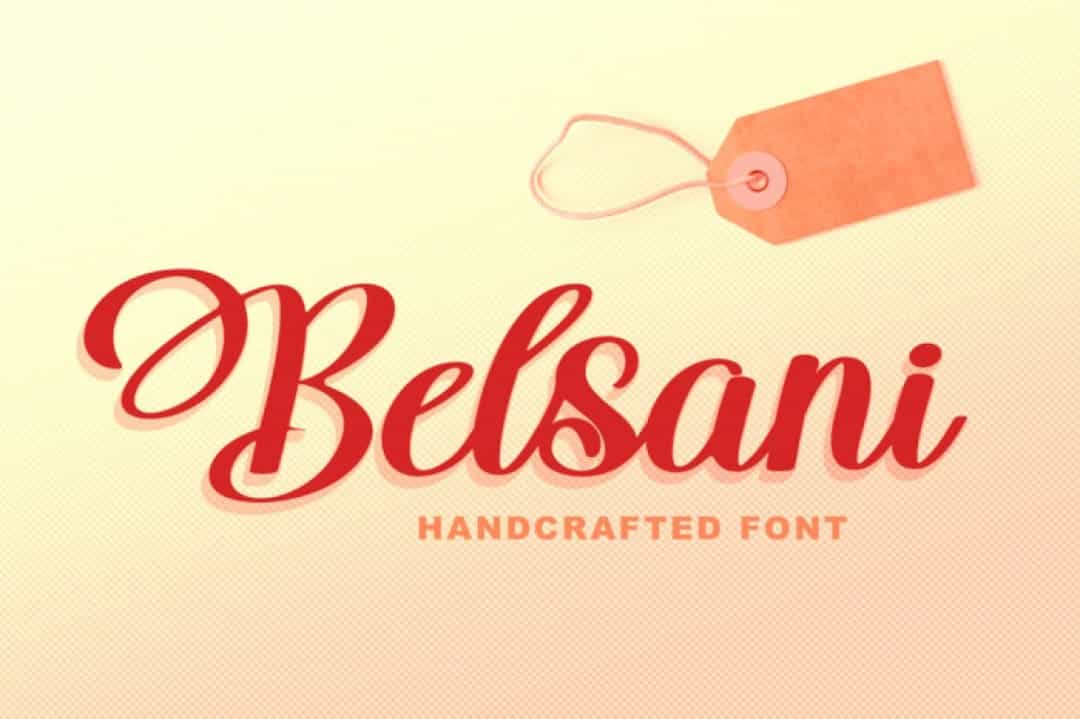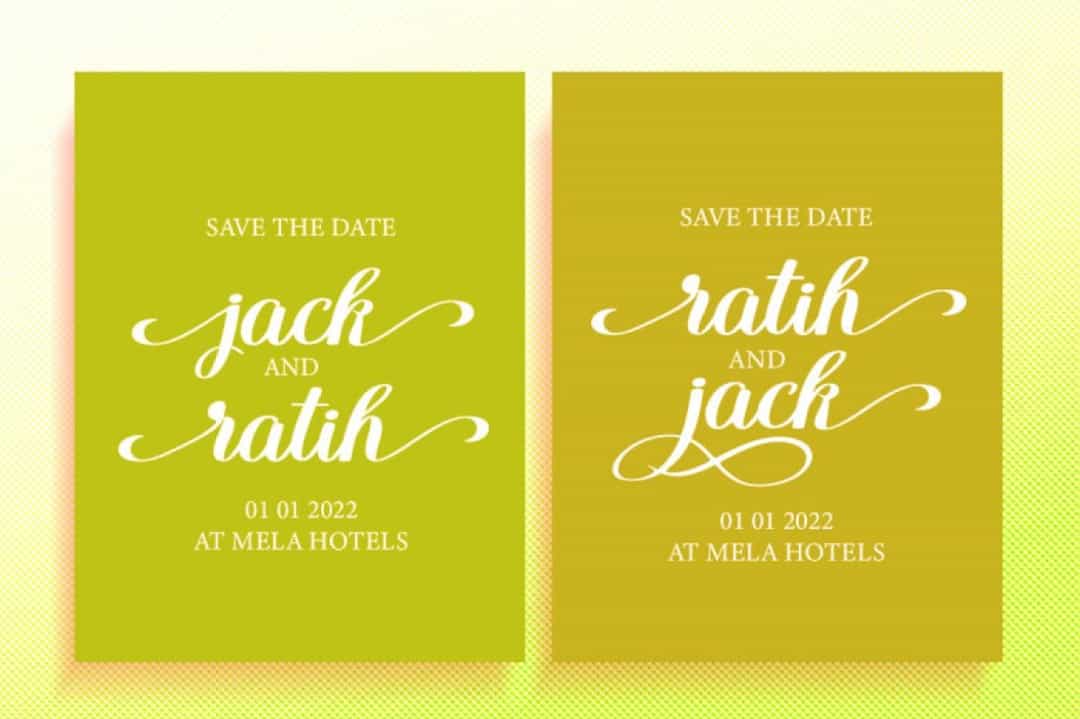
Belsani is a beautiful handwritten script calligraphy font featuring elegant script letterforms with strong, distinct features such as PUA encoded ligatures and alternatives – ideal for use in logos and formal formats.